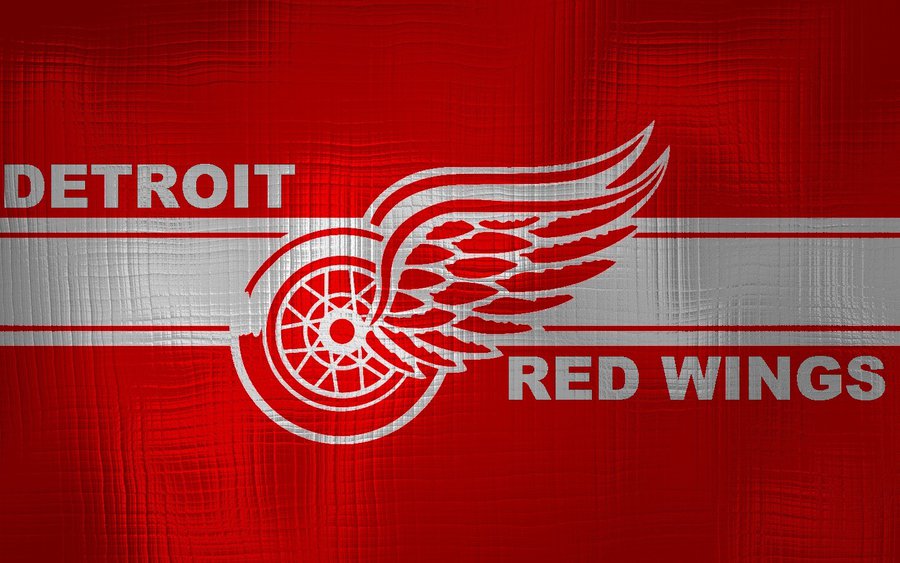
Red Wings Font
Red Wings Font - Web detroit red wings is a professional ice hockey team based in detroit, michigan. Web archive of freely downloadable fonts. Web featuring classic proportions, restrained stroke contrast, and subtle ink traps, redwing integrates modern details. Web nhl detroit red wings free font. Browse by alphabetical listing, by style, by author or by popularity. The font used for the wordmark of detroit red. Nhl detroit red wings font. Votes, rated based on results identification.
Browse by alphabetical listing, by style, by author or by popularity. Web featuring classic proportions, restrained stroke contrast, and subtle ink traps, redwing integrates modern details. The font used for the wordmark of detroit red. Nhl detroit red wings font. Web nhl detroit red wings free font. Web detroit red wings is a professional ice hockey team based in detroit, michigan. Web archive of freely downloadable fonts. Votes, rated based on results identification.
Web featuring classic proportions, restrained stroke contrast, and subtle ink traps, redwing integrates modern details. Nhl detroit red wings font. Web nhl detroit red wings free font. Browse by alphabetical listing, by style, by author or by popularity. The font used for the wordmark of detroit red. Web detroit red wings is a professional ice hockey team based in detroit, michigan. Web archive of freely downloadable fonts. Votes, rated based on results identification.
Web nhl detroit red wings free font. Browse by alphabetical listing, by style, by author or by popularity. Web detroit red wings is a professional ice hockey team based in detroit, michigan. Votes, rated based on results identification. The font used for the wordmark of detroit red.
Browse by alphabetical listing, by style, by author or by popularity. Web detroit red wings is a professional ice hockey team based in detroit, michigan. Web archive of freely downloadable fonts. Web nhl detroit red wings free font. Web featuring classic proportions, restrained stroke contrast, and subtle ink traps, redwing integrates modern details.
Web nhl detroit red wings free font. Web detroit red wings is a professional ice hockey team based in detroit, michigan. Nhl detroit red wings font. Browse by alphabetical listing, by style, by author or by popularity. Web featuring classic proportions, restrained stroke contrast, and subtle ink traps, redwing integrates modern details.
Web archive of freely downloadable fonts. The font used for the wordmark of detroit red. Nhl detroit red wings font. Votes, rated based on results identification. Web detroit red wings is a professional ice hockey team based in detroit, michigan.
Browse by alphabetical listing, by style, by author or by popularity. Web featuring classic proportions, restrained stroke contrast, and subtle ink traps, redwing integrates modern details. Nhl detroit red wings font. The font used for the wordmark of detroit red. Web detroit red wings is a professional ice hockey team based in detroit, michigan.
The font used for the wordmark of detroit red. Nhl detroit red wings font. Web archive of freely downloadable fonts. Web featuring classic proportions, restrained stroke contrast, and subtle ink traps, redwing integrates modern details. Web nhl detroit red wings free font.
Nhl detroit red wings font. Web detroit red wings is a professional ice hockey team based in detroit, michigan. Web nhl detroit red wings free font. Browse by alphabetical listing, by style, by author or by popularity. The font used for the wordmark of detroit red.
Nhl detroit red wings font. Web archive of freely downloadable fonts. Votes, rated based on results identification. Browse by alphabetical listing, by style, by author or by popularity. Web detroit red wings is a professional ice hockey team based in detroit, michigan.
Web archive of freely downloadable fonts. Votes, rated based on results identification. The font used for the wordmark of detroit red. Web detroit red wings is a professional ice hockey team based in detroit, michigan. Web nhl detroit red wings free font.
Web featuring classic proportions, restrained stroke contrast, and subtle ink traps, redwing integrates modern details. Web nhl detroit red wings free font. Votes, rated based on results identification. Web archive of freely downloadable fonts. Browse by alphabetical listing, by style, by author or by popularity.
Web Detroit Red Wings Is A Professional Ice Hockey Team Based In Detroit, Michigan.
Web archive of freely downloadable fonts. Web nhl detroit red wings free font. Browse by alphabetical listing, by style, by author or by popularity. The font used for the wordmark of detroit red.
Nhl detroit red wings font. Web featuring classic proportions, restrained stroke contrast, and subtle ink traps, redwing integrates modern details.